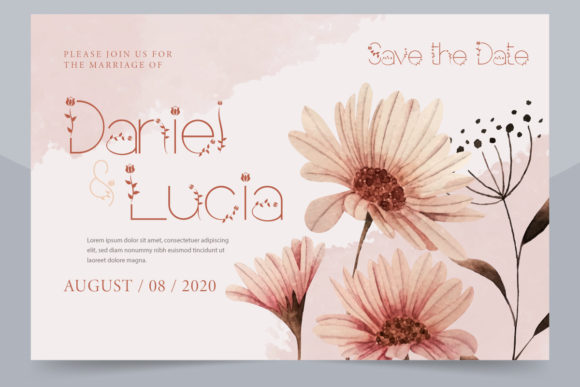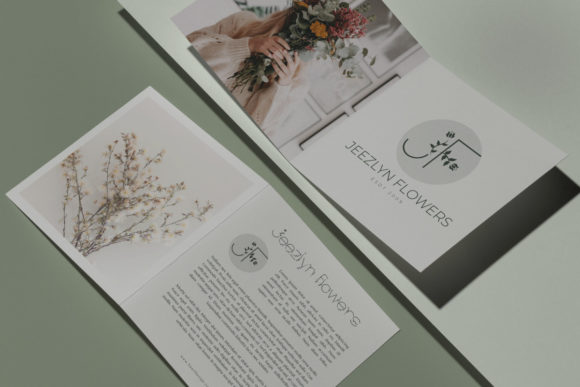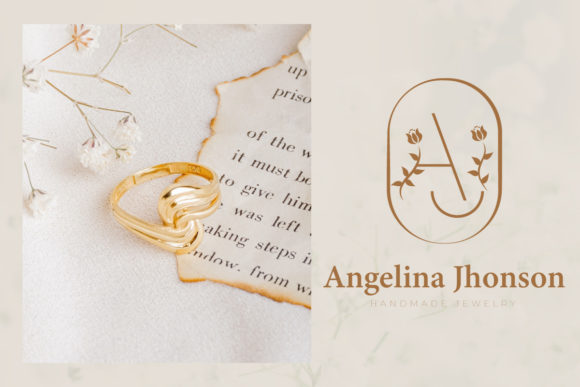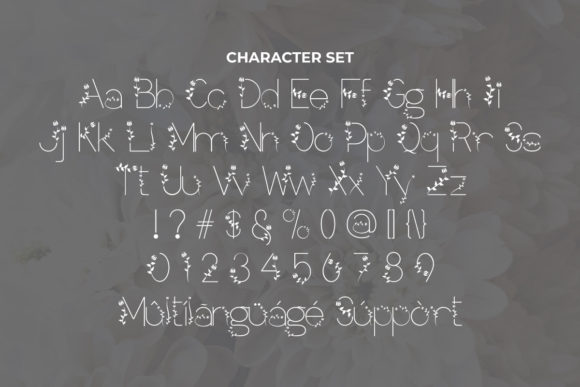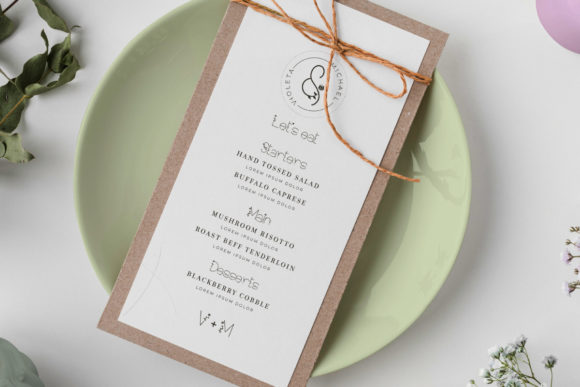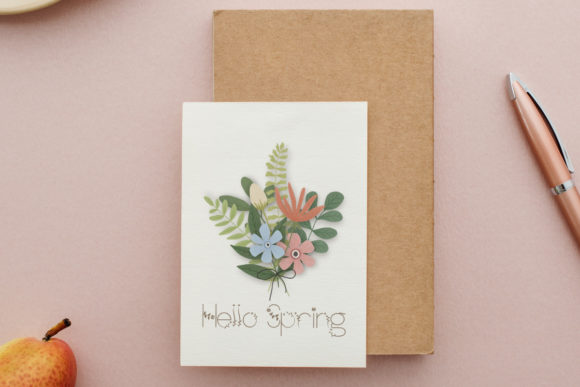
Introducing Flower Leaf Font: Elevate Your Designs with a Touch of Elegance
Are you tired of using the same old fonts in your designs? Do you want to add a touch of elegance and freshness to your creations? Look no further than Flower Leaf Font, a stunning thin lettered and fresh display font that’s sure to take your designs to the next level. In this article, we’ll dive into the world of Flower Leaf Font, exploring its features, benefits, and uses, and provide you with valuable insights on how to make the most of this beautiful font.
What is Flower Leaf Font?
Flower Leaf Font is a simple yet striking display font that’s perfect for designers and crafters looking to add a touch of sophistication to their work. With its thin lettering and fresh design, this font is ideal for creating visually appealing headings, titles, and captions that will instantly grab the attention of your audience. Whether you’re working on a branding project, a website design, or a crafting project, Flower Leaf Font is sure to make your creation stand out from the crowd.
Key Features of Flower Leaf Font
- Thin Lettering: Flower Leaf Font features thin lettering that’s both elegant and refined, making it perfect for creating sophisticated designs.
- Fresh Design: The font’s fresh design ensures that your creations will look modern and up-to-date, even in a crowded design landscape.
- Simple yet Effective: Despite its simplicity, Flower Leaf Font has a strong visual effect that’s sure to make your designs more appealing.
- Versatile: This font is versatile and can be used for a wide range of design projects, from branding and advertising to crafting and DIY projects.
Benefits of Using Flower Leaf Font
So why should you choose Flower Leaf Font for your design projects? Here are just a few benefits of using this amazing font:
- Adds Elegance: Flower Leaf Font adds a touch of elegance to your designs, making them perfect for high-end branding and advertising projects.
- Improves Readability: The font’s thin lettering and simple design make it easy to read, even at small sizes.
- Increases Visual Appeal: Flower Leaf Font’s fresh design and strong visual effect make it perfect for creating eye-catching headings and titles.
How to Use Flower Leaf Font
Using Flower Leaf Font is easy, even if you’re new to design or crafting. Here are a few tips to get you started:
- Pair with Other Fonts: Pair Flower Leaf Font with other fonts to create a unique and visually appealing design.
- Use for Headings: Use Flower Leaf Font for headings and titles to add a touch of elegance to your designs.
- Use for Crafting: Use Flower Leaf Font for crafting projects, such as card making and scrapbooking, to add a personal touch.
Tips and Tricks for Getting the Most out of Flower Leaf Font
Here are a few tips and tricks to help you get the most out of Flower Leaf Font:
- Use for Branding: Use Flower Leaf Font for branding projects to create a consistent and professional look.
- Experiment with Sizes: Experiment with different sizes to find the perfect fit for your design.
- Use for Digital Designs: Use Flower Leaf Font for digital designs, such as website headers and social media graphics.
- Use for Print Designs: Use Flower Leaf Font for print designs, such as business cards and brochures.
In conclusion, Flower Leaf Font is a stunning thin lettered and fresh display font that’s perfect for designers and crafters looking to add a touch of elegance to their work. With its simple yet effective design, this font is sure to make your creations more appealing and visually striking. Whether you’re working on a branding project, a website design, or a crafting project, Flower Leaf Font is a great choice. So why wait? Download Flower Leaf Font today and take your designs to the next level!